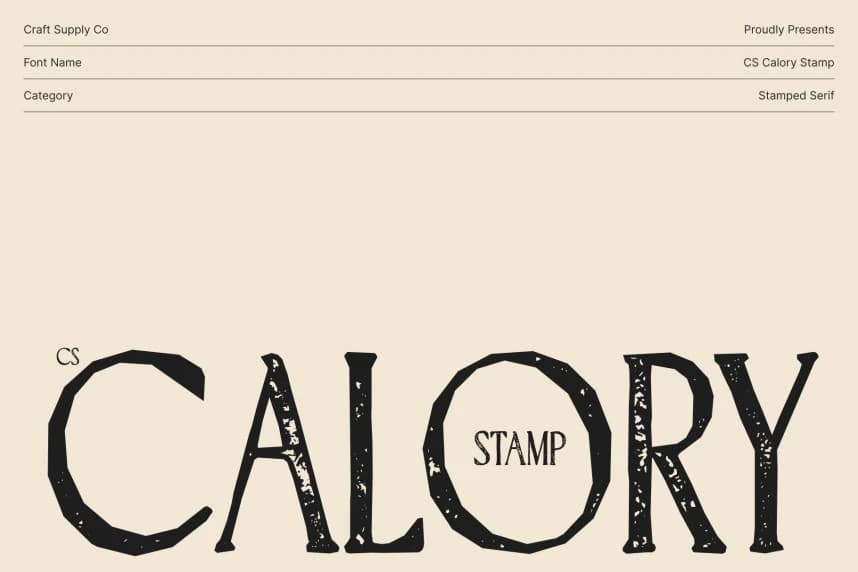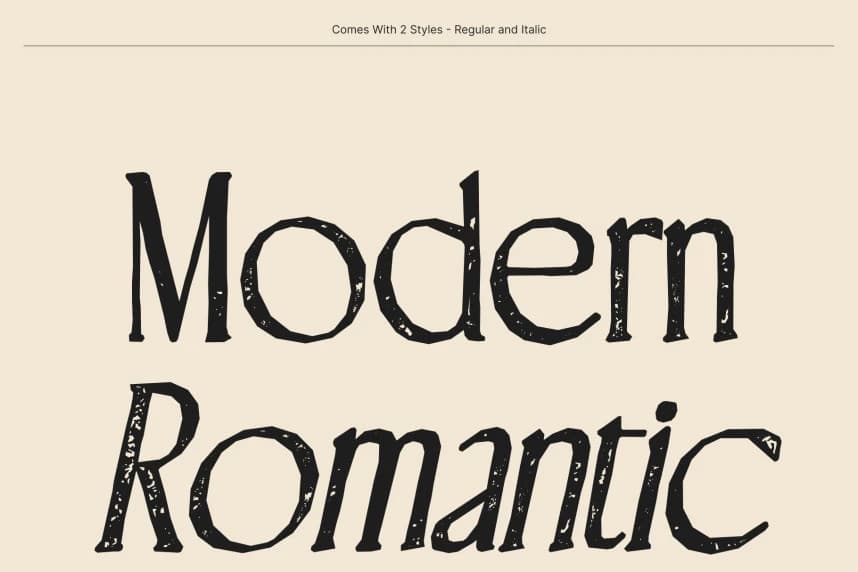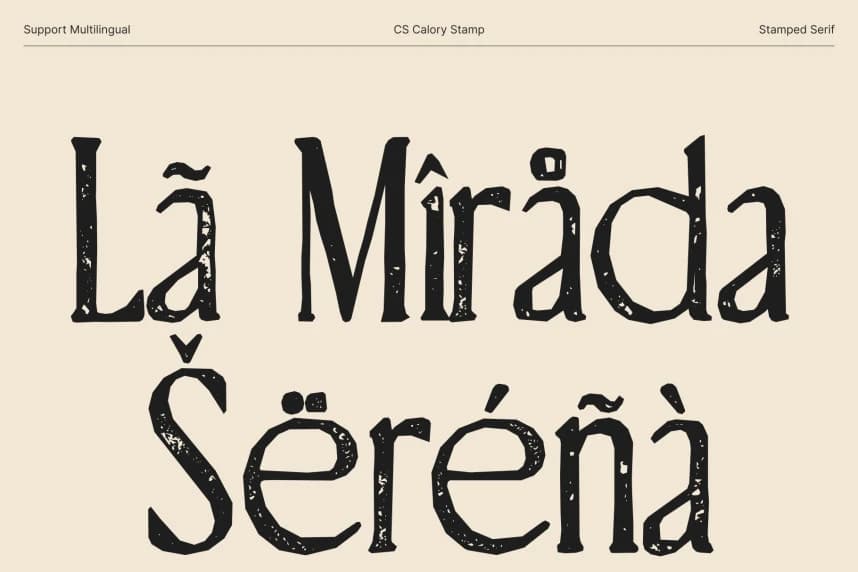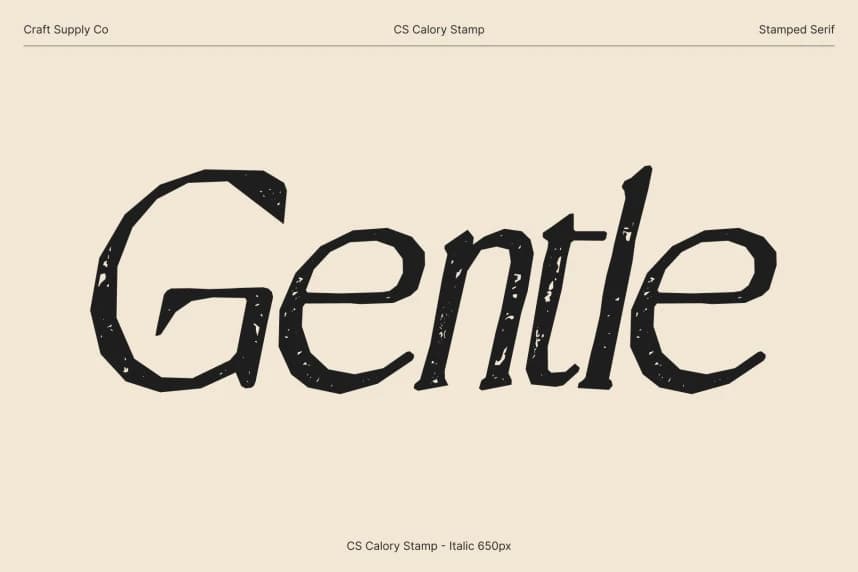
CS Calory Stamp Font
CS Calory Stamp Font – Condensed Serif with Vintage Elegance Sophisticated Structure with Artistic Stamp Texture. This is a modern serif font with a condensed structure, enhanced by a distinctive stamp effect that introduces vintage character